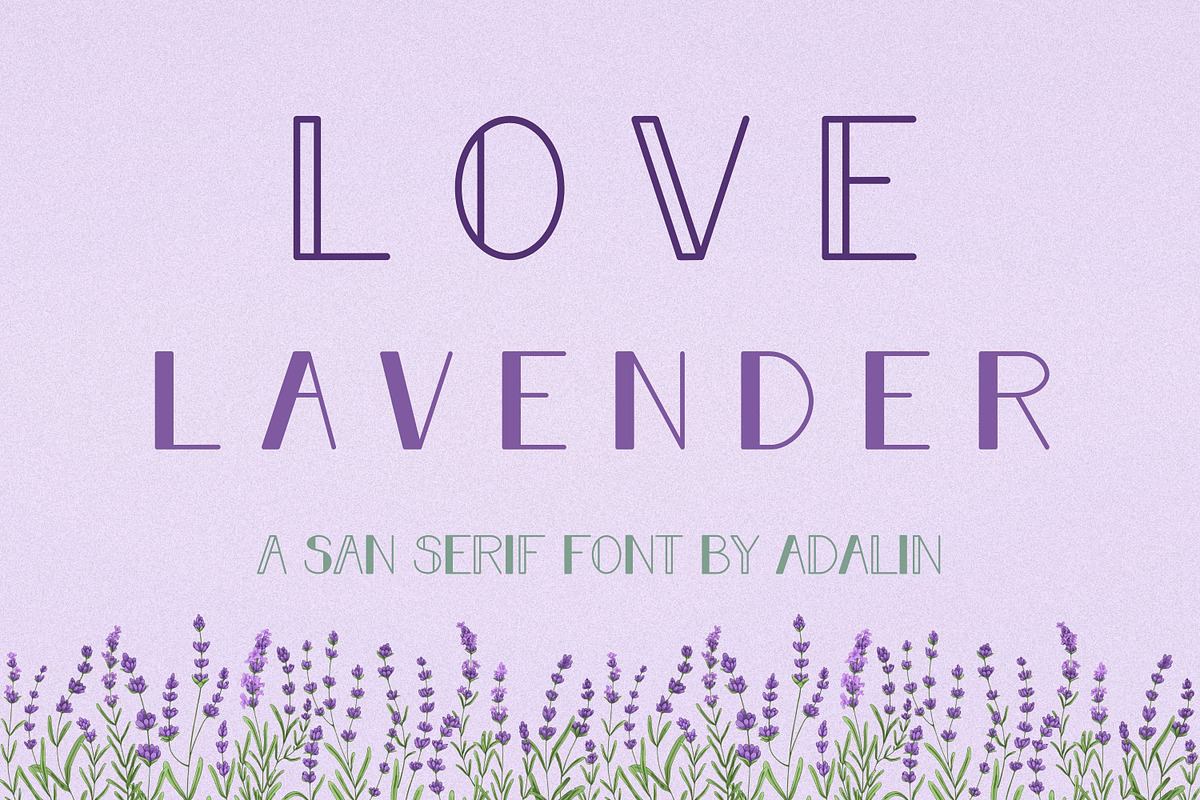
Love Lavender – Sans Serif Font Free Download is a soft, minimalist typeface that blends simplicity with a gentle, romantic vibe. Perfect for wedding stationery, wellness branding, packaging, social media posts, and lifestyle blogs, this font delivers a clean yet emotional visual experience.
Its smooth curves and modern letterforms make it easy to read while still offering a distinct, stylish personality. Whether you're crafting product labels, aesthetic quotes, or website headers, Love Lavender adds a calming elegance to your design.
Designers love Love Lavender for its balance of contemporary structure and soft expression—making it a go-to for both personal and professional projects. Want to bring peaceful beauty into your next creation? Download Love Lavender – Sans Serif Font Free Download and let your designs bloom with subtle charm.